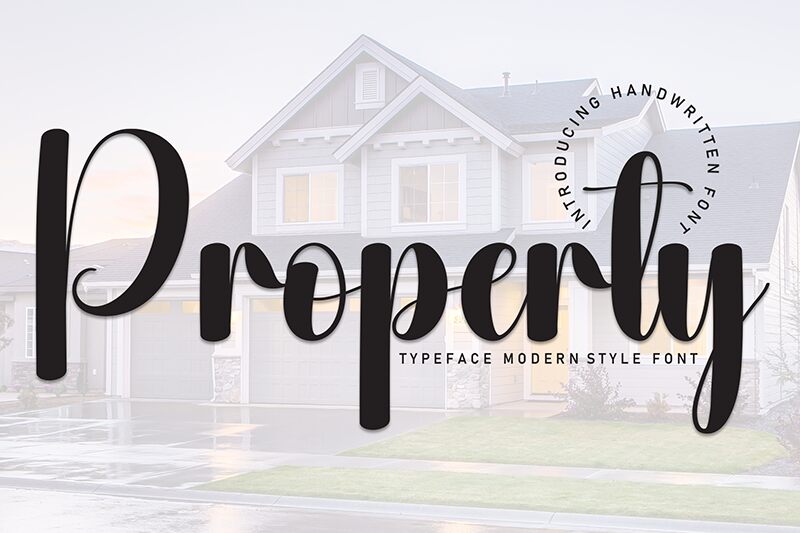
Property
Are you looking for a simple yet fun script font for your wedding invitations or other projects that need a whimsical touch? Properly is the perfect font to add your playful designs. This free script brush font was designed by Andi Moz and features uppercase letters, numbers, symbols, and punctuation marks. Although it’s great for writing names, labels, and quotes, this font also features unique alternate characters that can be used to highlight certain words.
Properly is the perfect font to design cards, logos, or simply add cute texts to your social media posts.